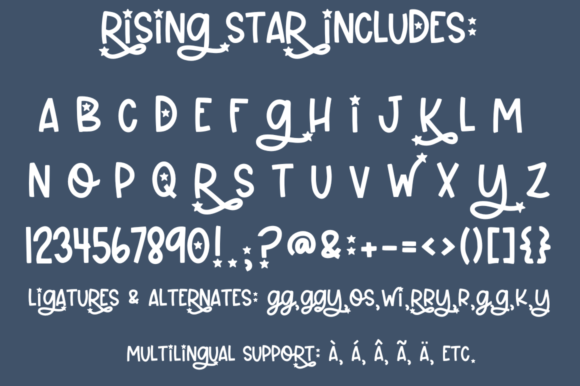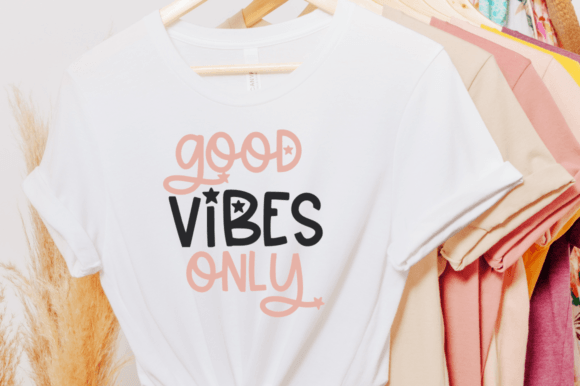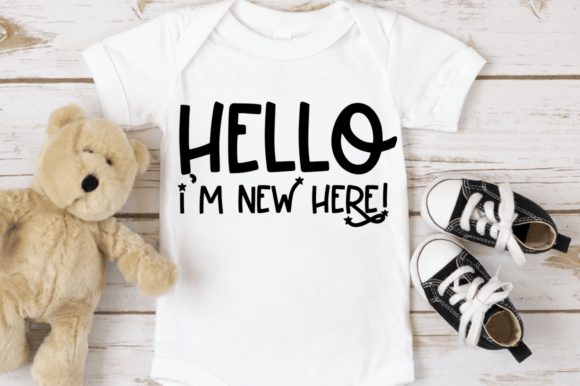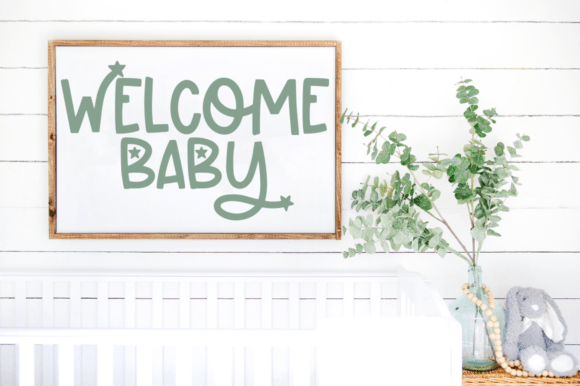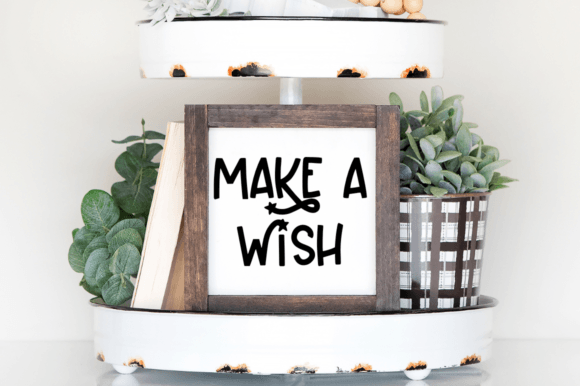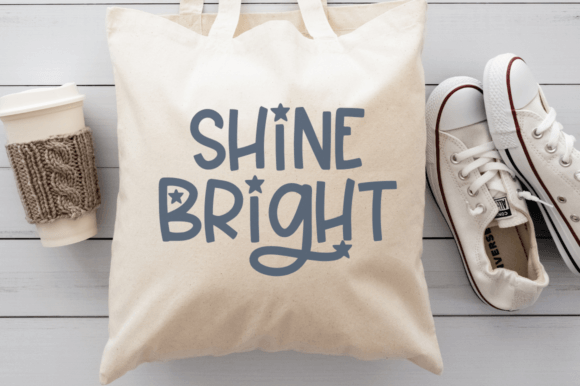
Introduction to Rising Star Font
Rising Star is a beautiful and exquisite handwritten font that exudes a magical and romantic charm.
Its delicate strokes and elegant curves create a graceful flow, while its intricate details and unique flourishes add a touch of enchantment Perfect for wedding invitations, feminine branding, and any project in need of a whimsical and sophisticated touch.